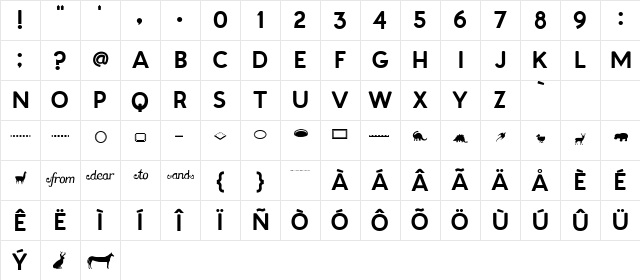
Patagonia Patagonian Titles
Style: Patagonian Titles
Design Context for Patagonia
Patagonia is a composed and adaptable typeface that performs quietly and consistently across a wide range of design contexts.